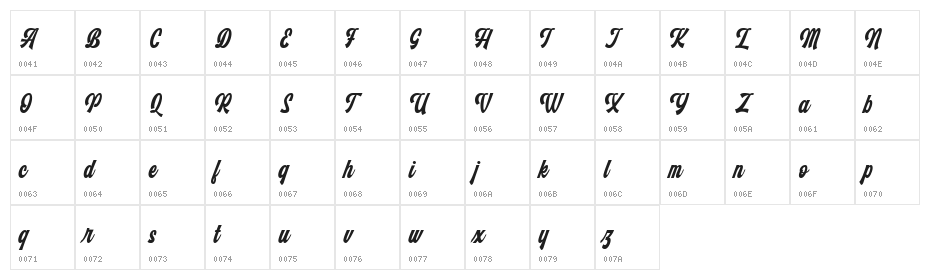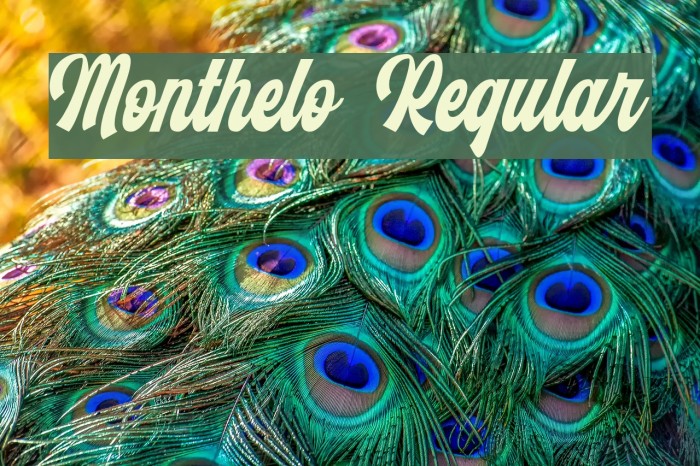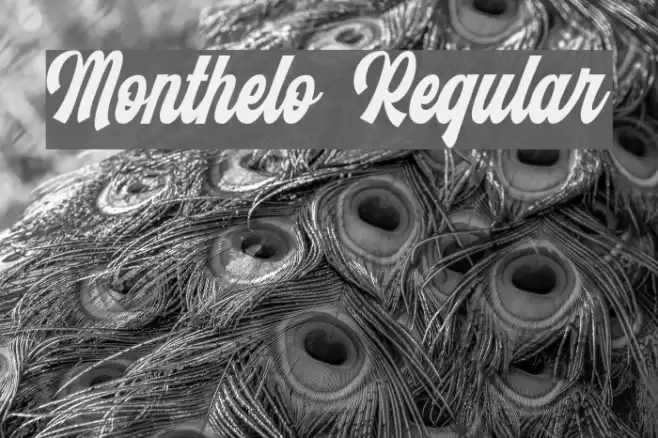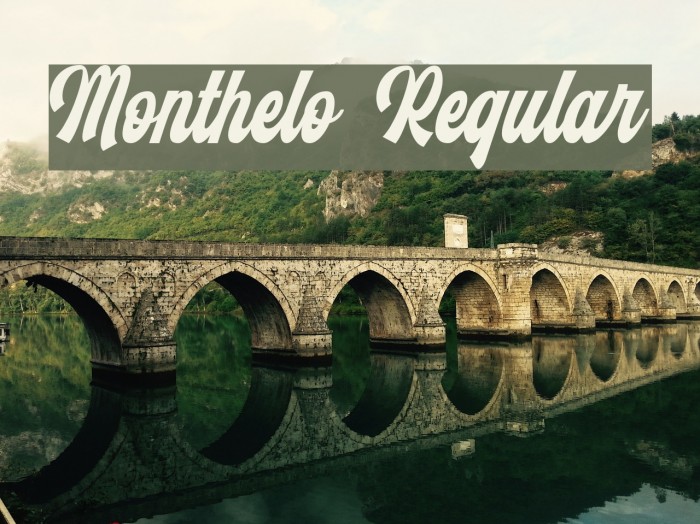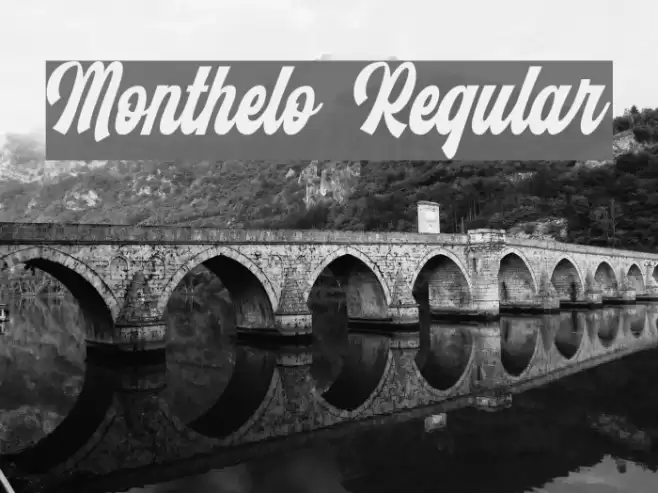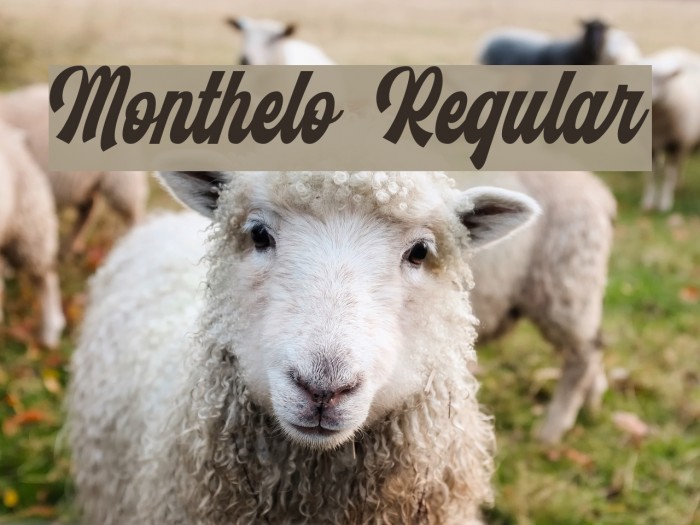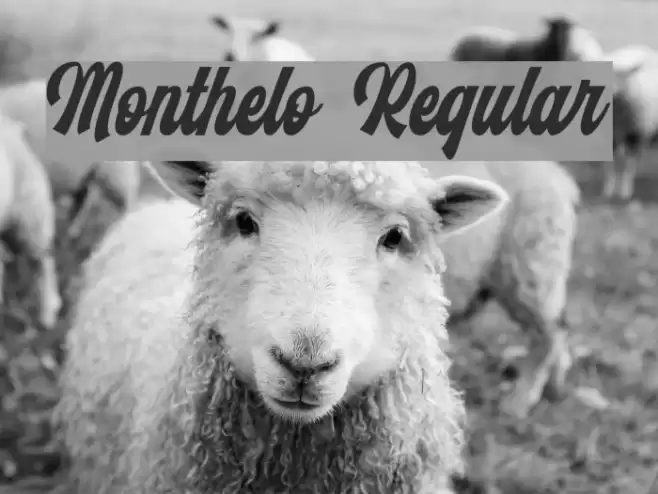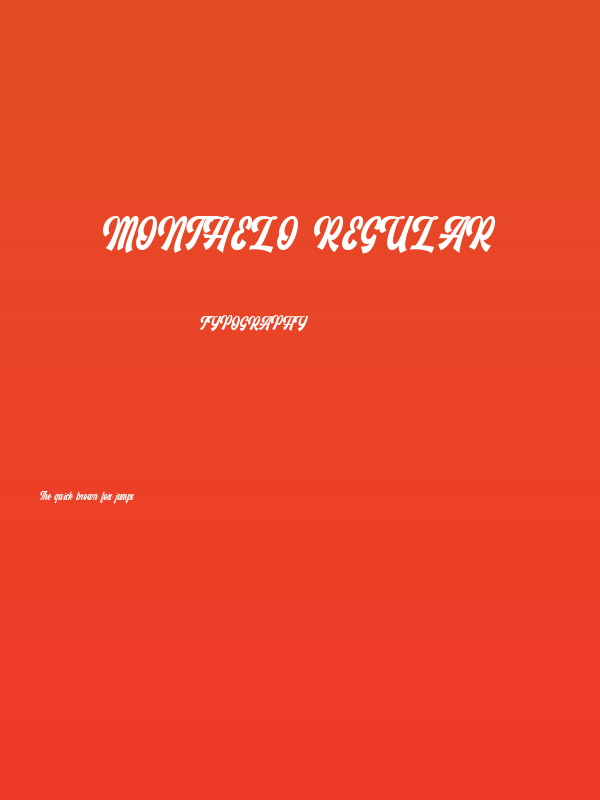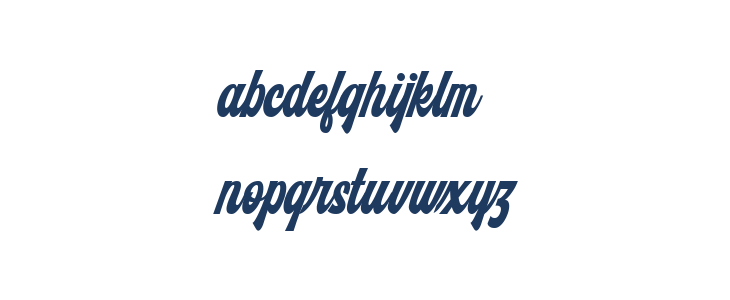
Monthelo Regular Font
Monthelo Regular Description
This font features a bold, flowing script style with a strong emphasis on elegance and fluidity. The characters are interconnected, creating a seamless and continuous look that is both sophisticated and dynamic. The uppercase letters are particularly ornate, with sweeping curves and flourishes that add a touch of grandeur. The lowercase letters maintain the same fluidity, with a slightly more understated design that complements the uppercase. The numbers and special characters follow the same stylistic cues, ensuring a cohesive appearance across all text. This font is ideal for projects that require a touch of elegance and flair, such as invitations, branding, and decorative headlines.
Use CaseHeadlines, Logos, Invitations
Proposed ProjectsIdeal for invitations, branding, decorative headlines, and elegant design projects.